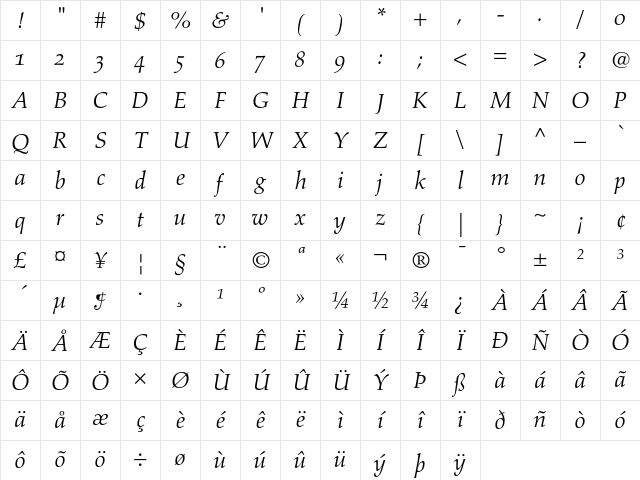
Complete Aldus Italic Oldstyle Figures glyph index. Displaying only characters natively supported by Aldus Italic Oldstyle Figures font.
Aldus carries the refined structure of traditional serif typography, with bracketed terminals and considered proportions that communicate credibility and craft. The slanted form adds forward momentum and visual energy.
Pro Tip: Use Aldus for editorial body copy and considered headline work. Pair with a neutral sans for UI elements or captions to create a classic hierarchy.